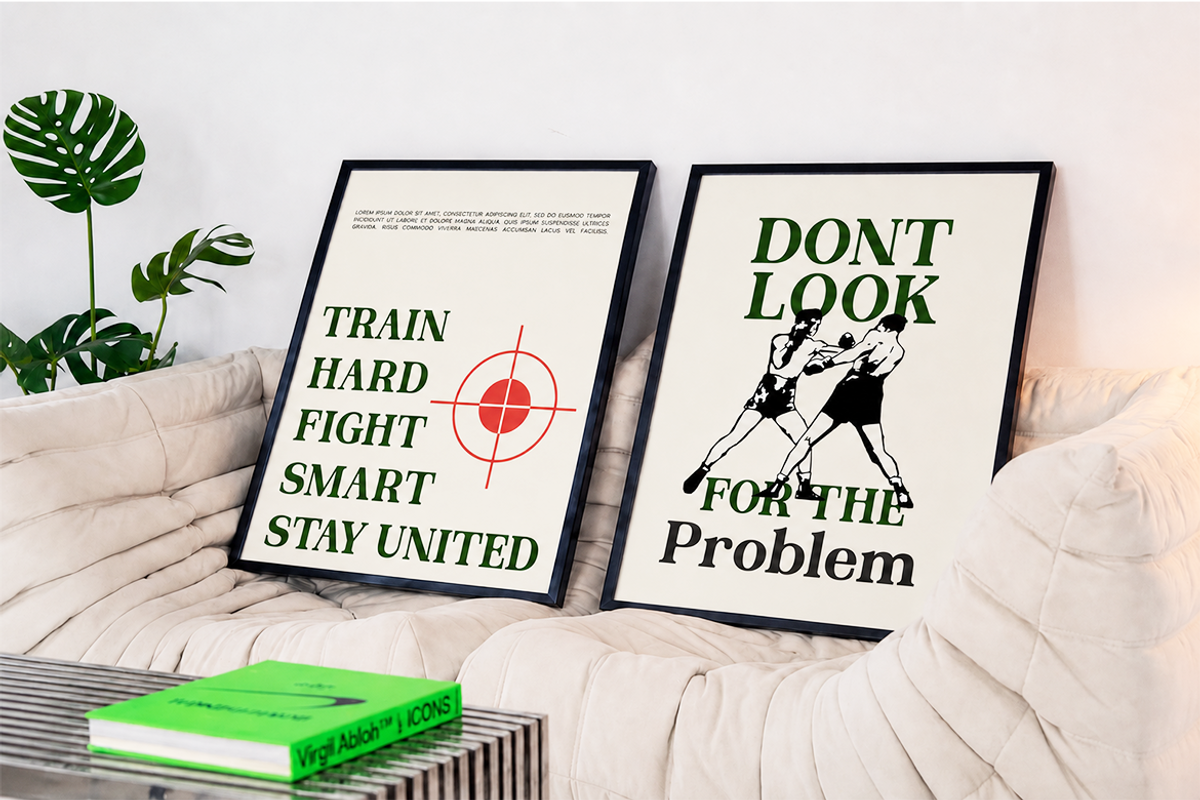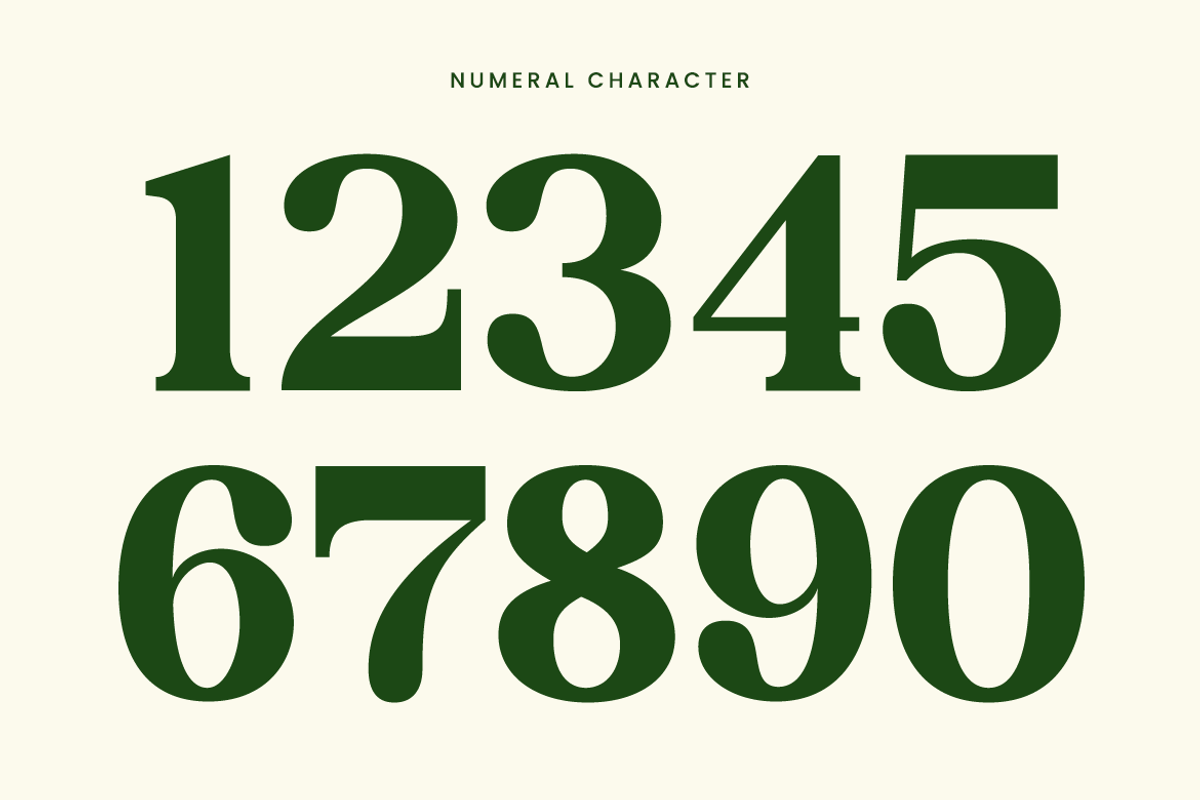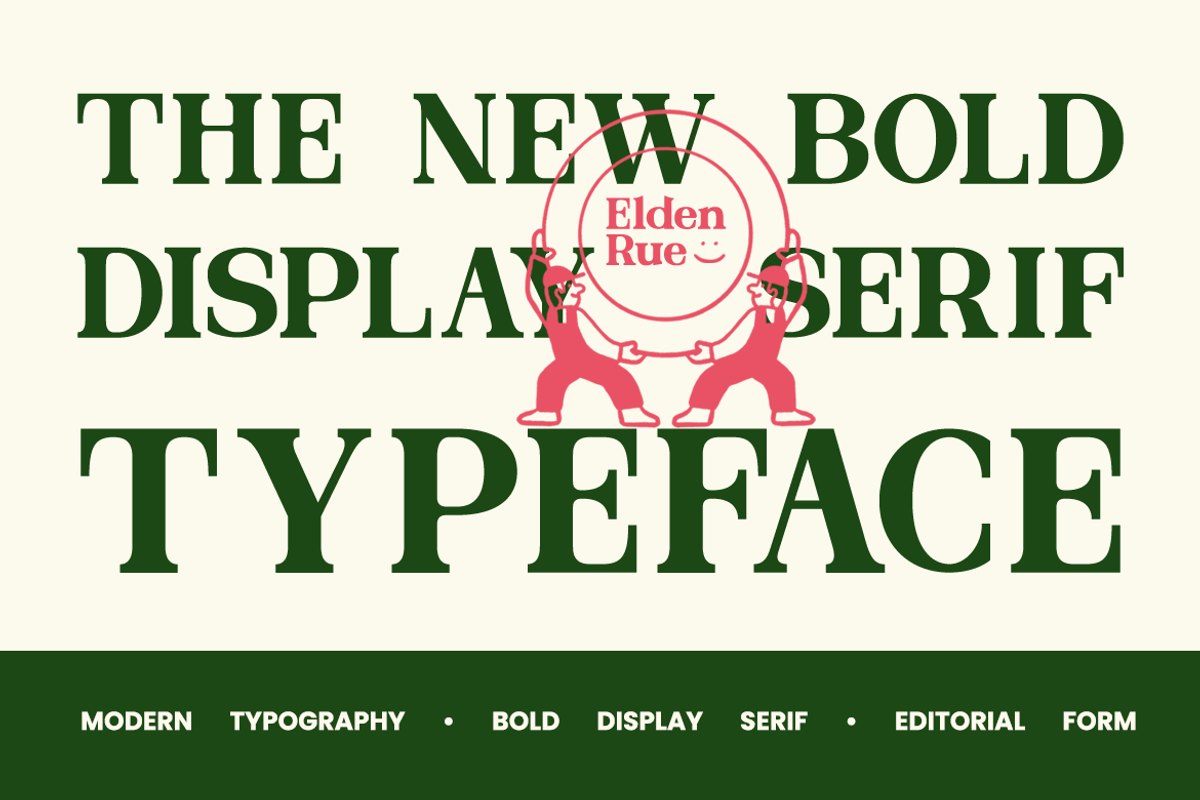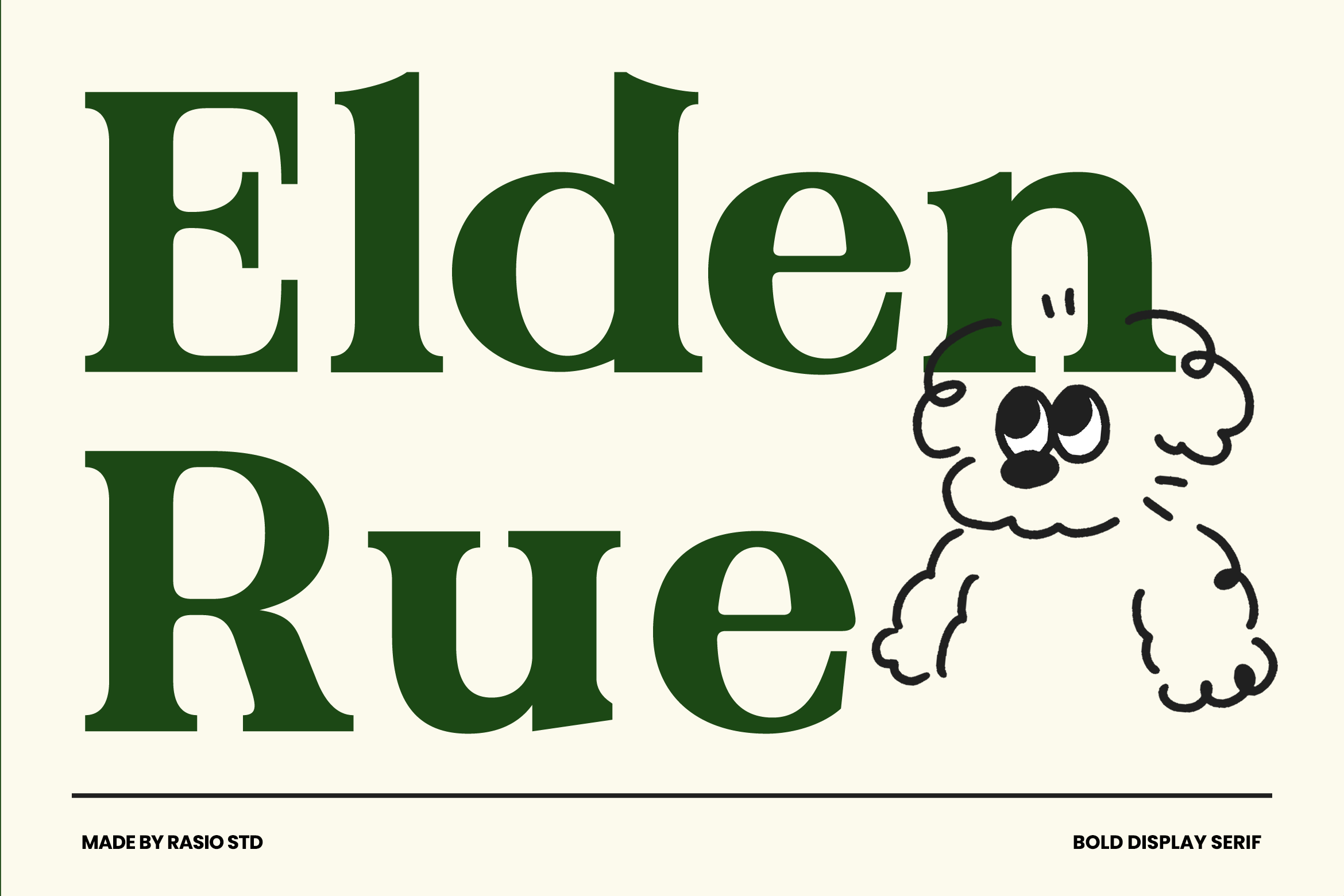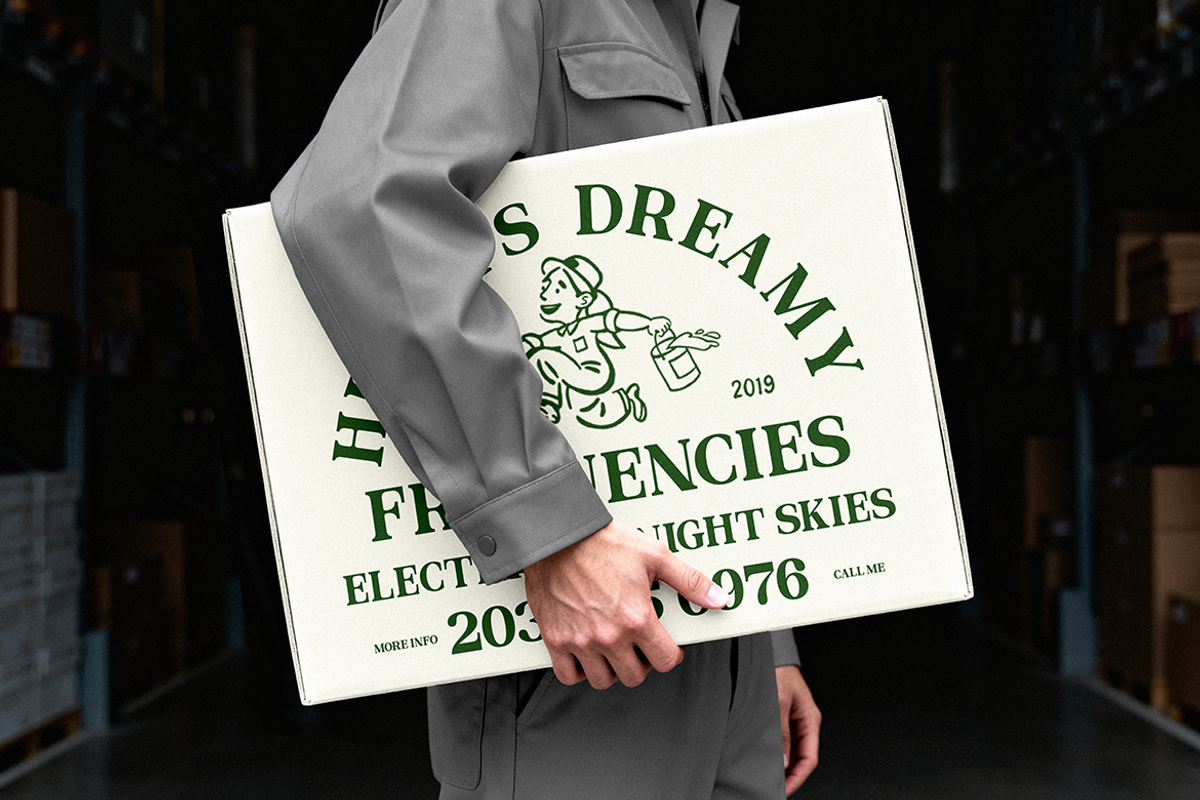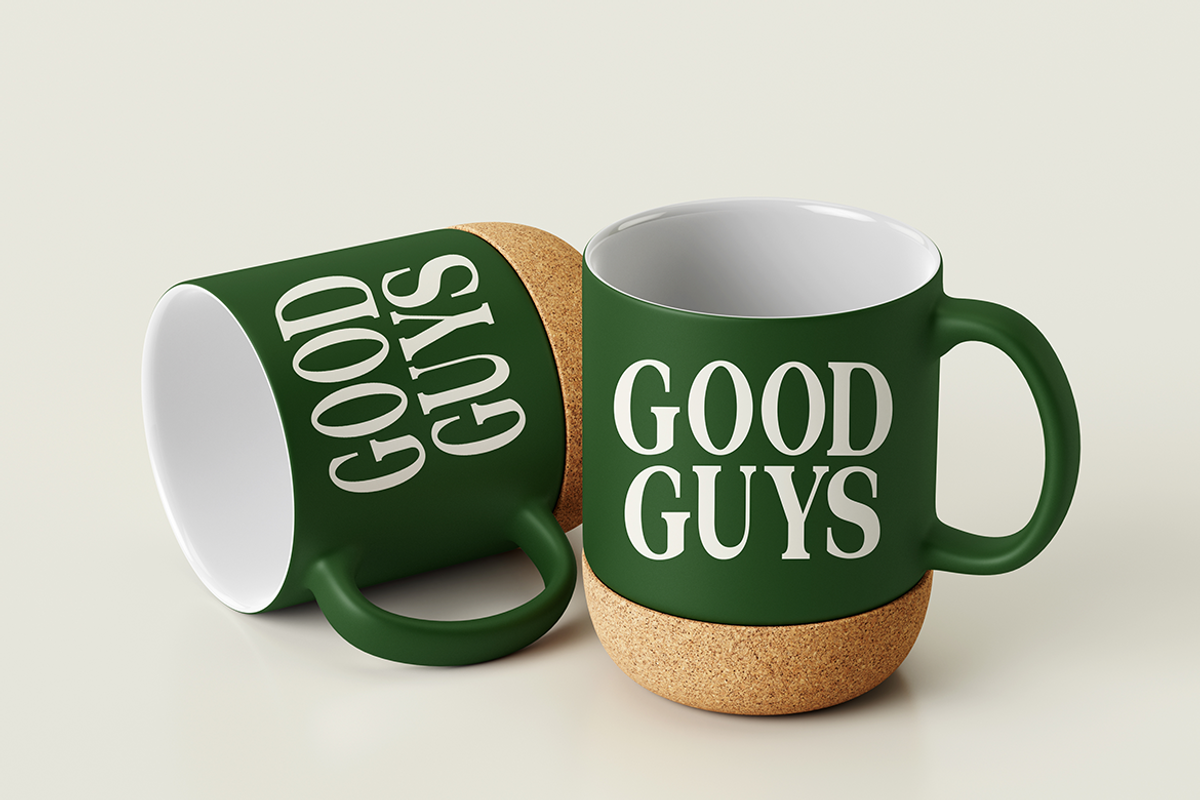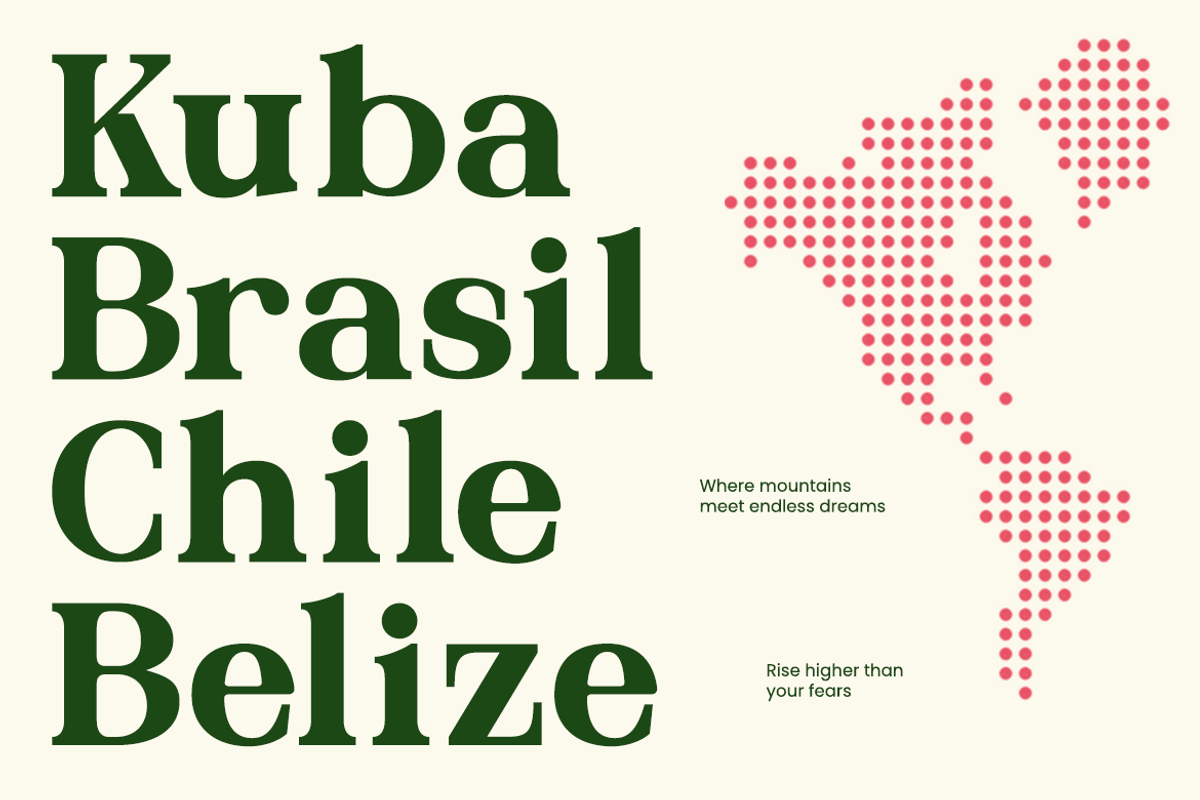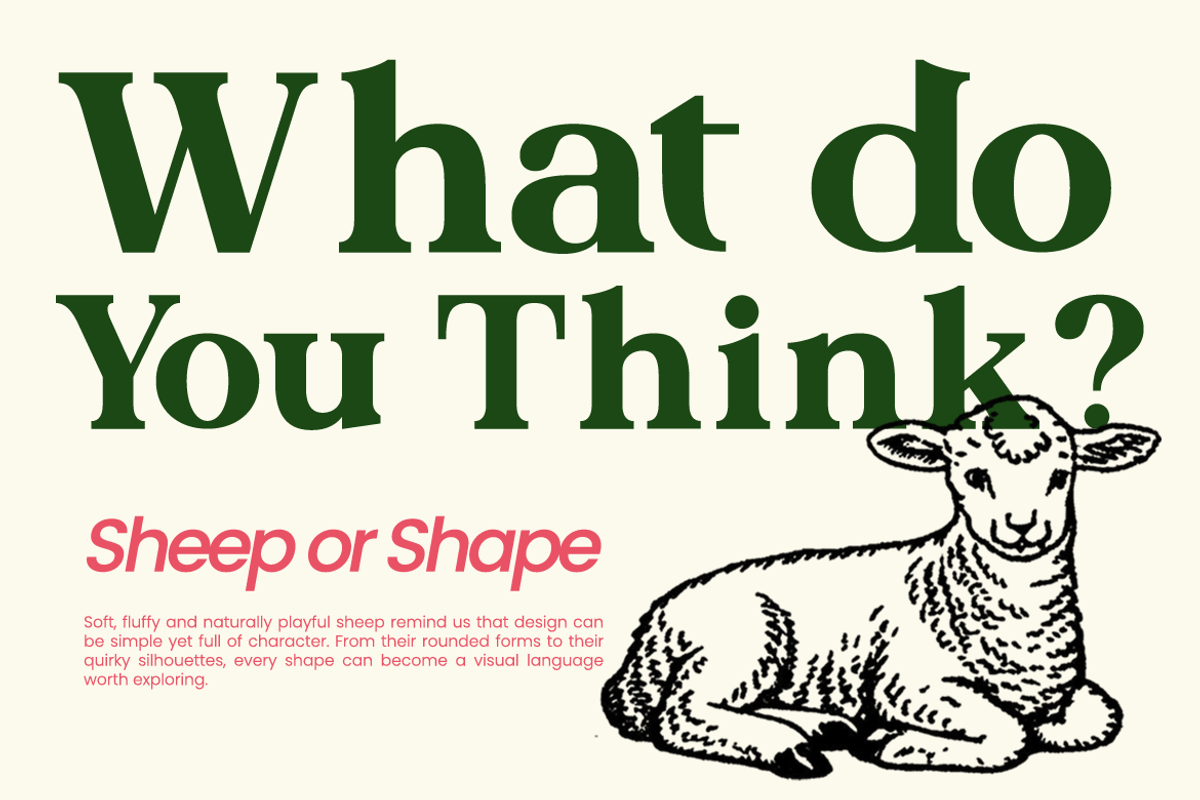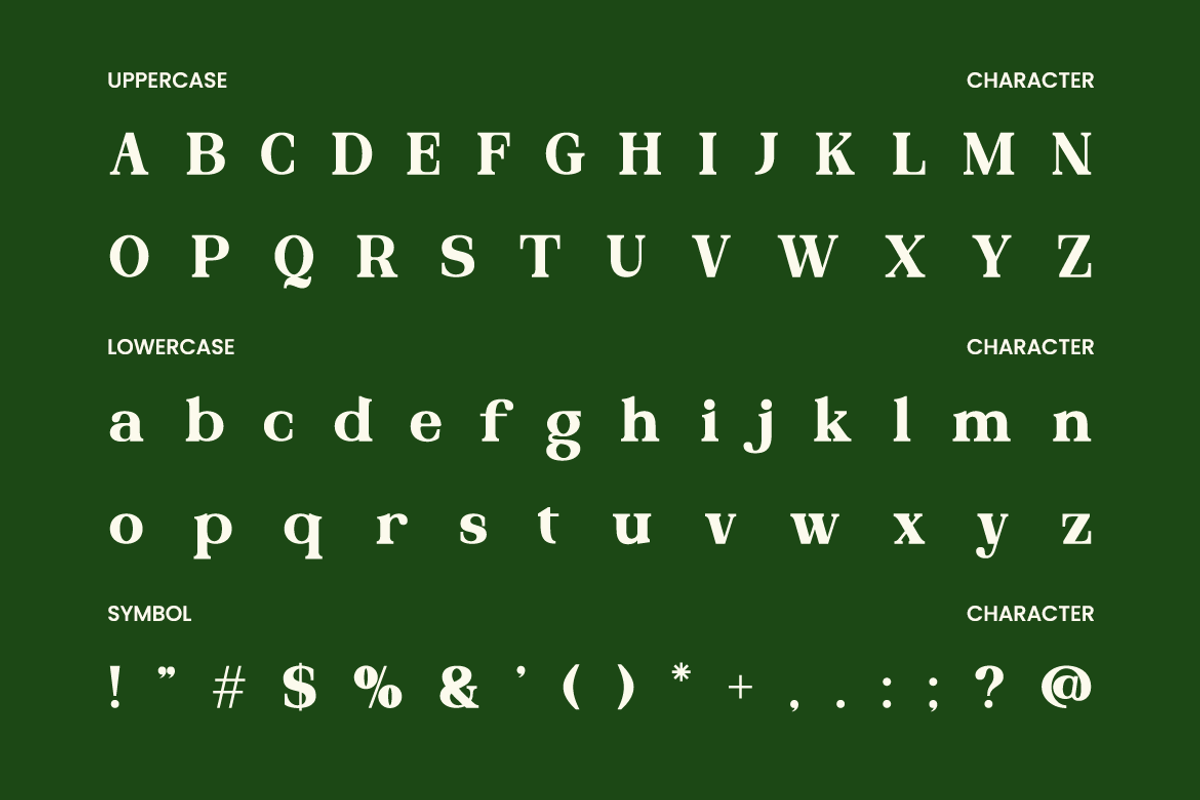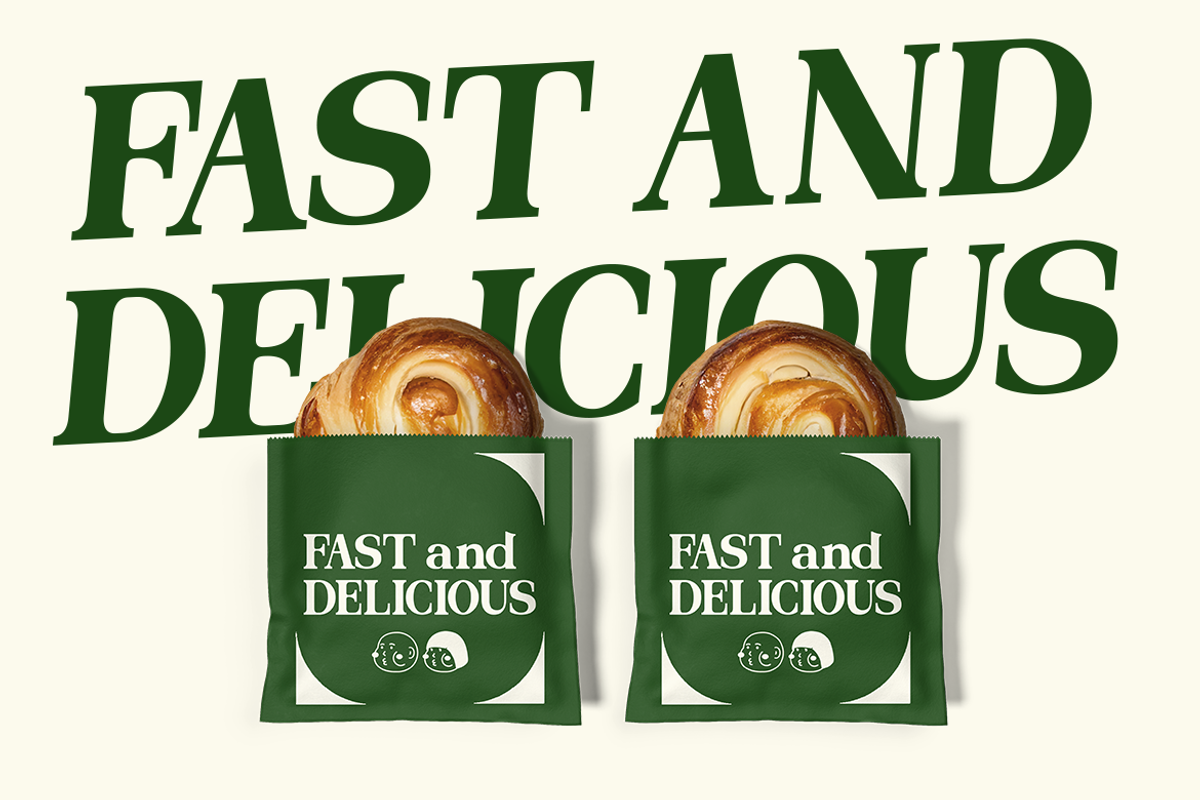
Elden Rue Bold Display Serif Font
Elden Rue is a bold display serif with a substantial, poster-like character, combining heavy strokes with sharply defined serif structures. The uppercase letters have broad, weighty proportions that create a strong visual block, making individual characters remain prominent even when used at large sizes. Its lowercase forms carry the same sturdy foundation while introducing more varied shapes and proportions, giving words a more expressive rhythm without losing the font’s assertive character. The included character set also features punctuation and symbols, extending its use beyond alphabetic headlines into more complete typographic compositions.
Elden Rue is particularly relevant to projects where the typeface needs to carry visual emphasis rather than function primarily as neutral body copy. Its heavy serif construction gives headlines, names, and short phrases a substantial presence, while the combination of uppercase and lowercase characters allows designers to vary hierarchy without changing the overall typographic personality. It can be applied to fashion and lifestyle branding, editorial artwork, cultural posters, packaging concepts, book covers, promotional graphics, product naming, and other compositions centered around prominent lettering.
Bold display construction with substantial visual weight
Pronounced serif details that give the characters a classic editorial character
Strong uppercase forms designed to create immediate visual impact
Distinctive lowercase shapes that add personality to longer words
Balanced proportions for large-scale headline compositions
Brand identity for fashion labels, creative studios, lifestyle businesses
Editorial covers where large titles need a strong contemporary visual attitude
Poster and campaign graphics using oversized words event names
Packaging and labels for products that benefit from expressive typography
Book and publication titles where the lettering needs visual mood
Supports numerals, punctuation, and extensive symbol set